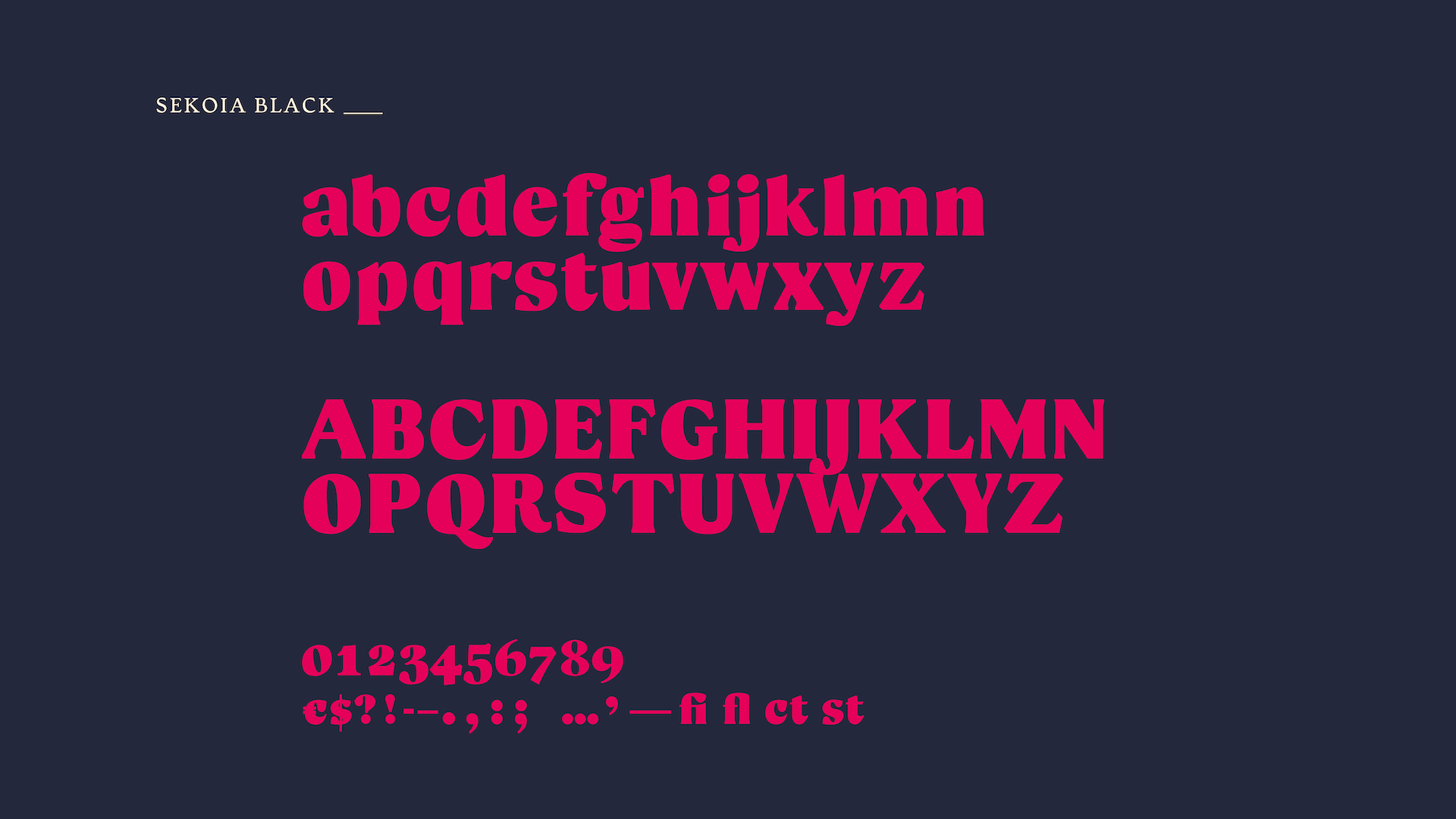
Sekoia
After Nadine Chahine’s moving speech at TypeParis and Neville Brody’s explanation of the designer’s commitment, an idea popped in my head: create something that can “change or help” the world a little bit. I decided to create a typeface for the Colibri Association founded by Pierre Rabhi. This movement is based on citizen action, which links personal and societal change. It encourages everybody to “do their part” to initiate ecological and societal transformation.
During these 5 intensive weeks learning type design I discovered a world of shapes, contrast, counters, curves, black and white. And of course interpolation, too! We went through calligraphy to type design using tracing paper (a lot) and searching for right proportions of each glyph, finding a way to express brush and broadnib pen movement with thick and thins, looking for the good serif.
Going fast all the time was a good exercise because it keeps you moving forward. First, you’re completely lost, then you find a way—then you’re lost again. You can’t stay at the same point losing your time asking questions with no goals: you need to draw more letters! All guest critics and instructors were helpful, trying to explain as best as they could the details of calligraphy, tracing paper technics, glyph tricks, type design and spacing letters (and there’s a lot to say…). That helped me to make choices about what I should keep or erase from the shape on my “n” and “p”. Creating a readable typeface on small size was my goal. But one day somebody told me: “You should try a Black-Display-Condensed” (actually the complete opposite of what I started to do). That was the beginning of the Black Sequoia Font that I now use for titling. I went for a body text font and finally I’m happy to have a font for text, a display Black font for titling and also two or three intermediate more weights (thanks to Rainer, glyph and interpolation)!
We can imagine a text as a tree. A paragraph as a tree trunk, and each word as a tree branch. Sekoia is a very well known tree in the world, strong and enormous. Sekoia font is a body text font based on my calligraphy style and inspired from Roman brush capitals in Pompeii. It’s a typeface with short ascenders and descenders to create aa powerful text color. The first goal was to facilitate readability at small sizes. The second goal was to do a titling version of that font. Finally (in the future), I will try to do a stencil version from the black weight.